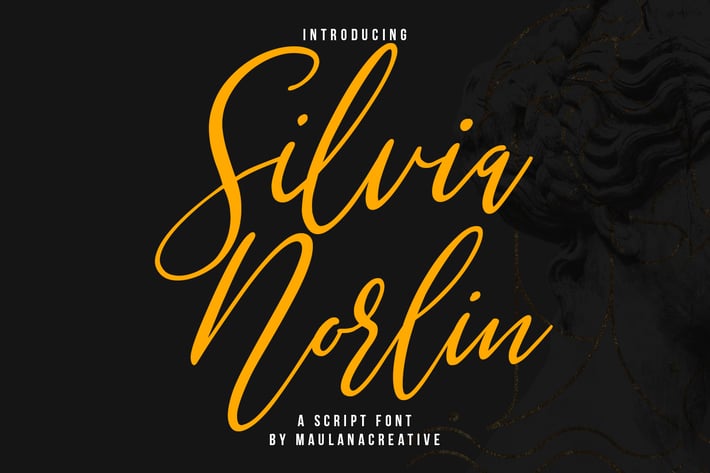
Silvia Norlin Beauty Signature Script Font
Silvia Norlin is a beauty signature script font. With thin contrast stroke, slanted and fun character with a bit of ligatures. To give you an extra creative work. Silvia Norlin font support multilingual more than 100+ language. This font is good for logo design, Social media, Movie Titles, Books Titles, a short text even a long text letter and good for your secondary text font with sans or serif. Make a stunning work with Silvia Norlin font.